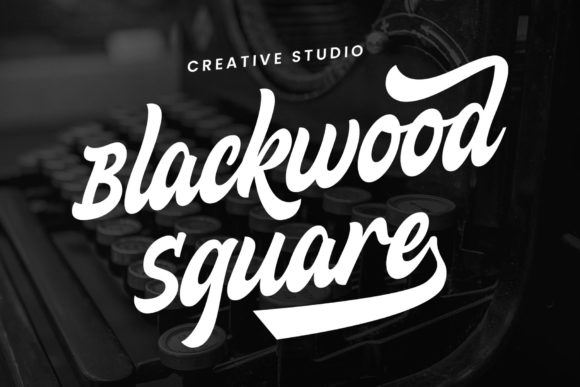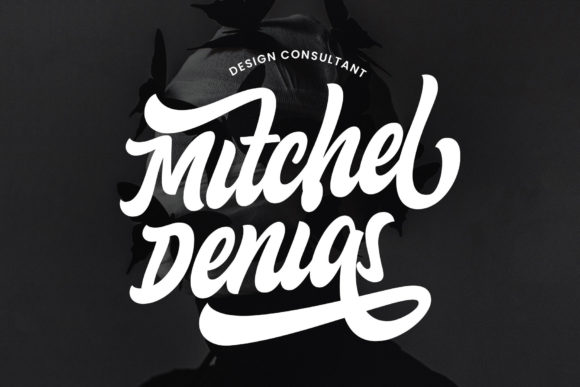
Vanitha Font
db-ku.com - Script & Handwritten -- Vanitha is a retro styled and graceful script font. Fall for its ravishing style and use it to create gorgeous designs. This font is PUA encoded which means you can access all glyphs and swashes with ease!